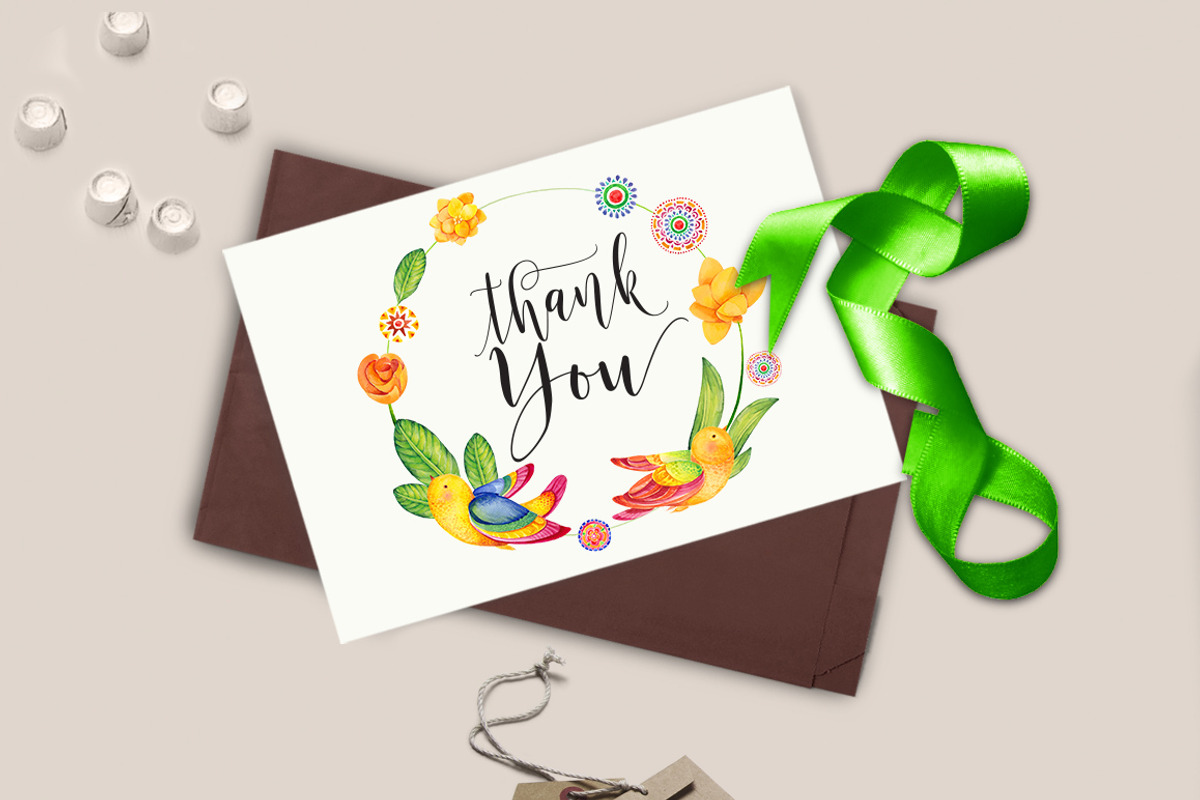
Mustica script
NEW UPDATES MORE THAN 100 CHARACTER ALTERNATES from the 570 glyph become 670 glyph overall, as well as the addition of several ligatures and additions Sans Font
Mustica Script + Mustica Script Sans
Mustica Script, is a calligraphy wavy, modern and clasik, so soft, perfect for your next design, such as logos, printed quotes, invitations, cards, product packaging, headers and anything else about your imagination.
Mustica Script allows you to create custom dynamic text. you can access by turning on; Stylistic Alternates, Swash, Stylistic Set, Initial as well as ligatures in Photoshop, Adobe Illustrator, Adobe InDesign or through a panel of glyphs such as Adobe Illustrator, Photoshop CC, Let's switch from the reguler character into character alternative to get the text with the layout of your dreams. Mustica Script also includes glyphs, punctuation, numbers, and multilingual.
Mustica Script features 670 glyphs and has given PUA unicode (specially coded fonts), with tons of alternate characters. The pack can be accessed in full by any crafter or designer, without the requirement for extra design software, COMPATIBLE WITH SILHOUETTE & CRICUT DESIGN SPACE
The Features of this fonts is: Contextual Alternates, Standart ligatures, Stylistic Alternates, Stylistic Sets, nitial
Features Basic Latin A-Z and a-z Numbers Symbols